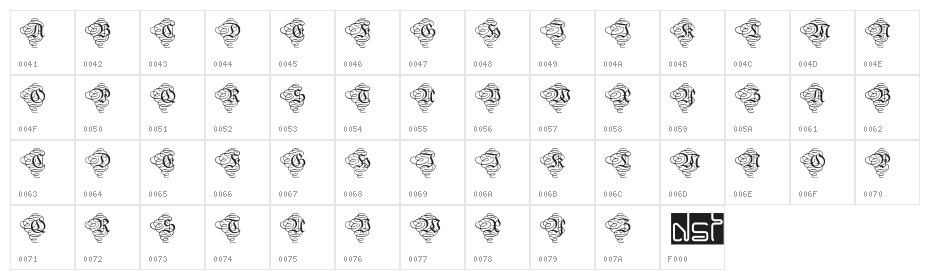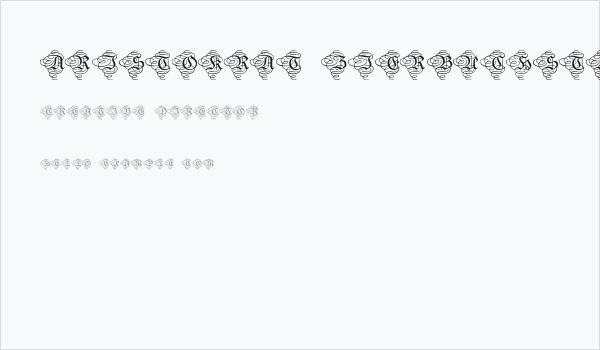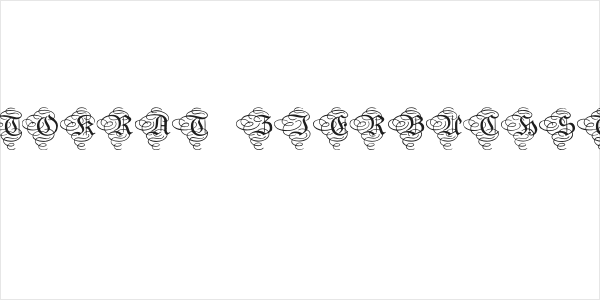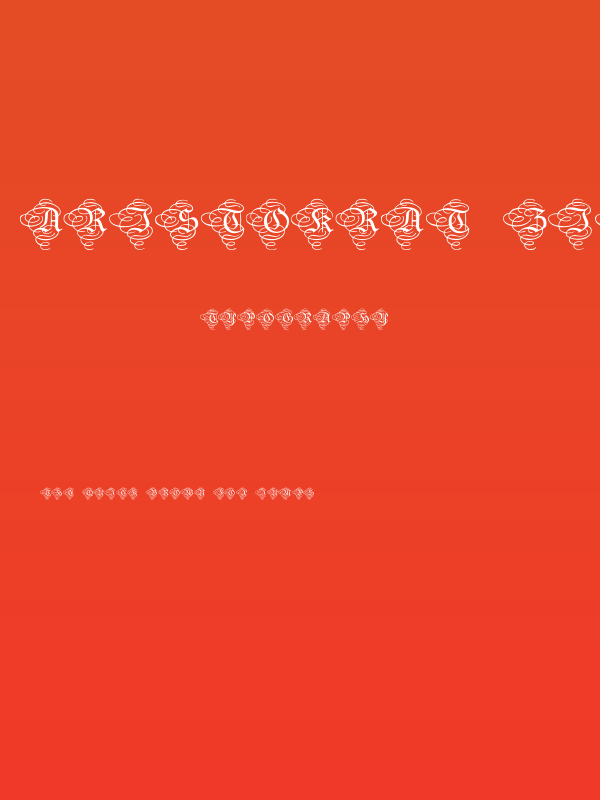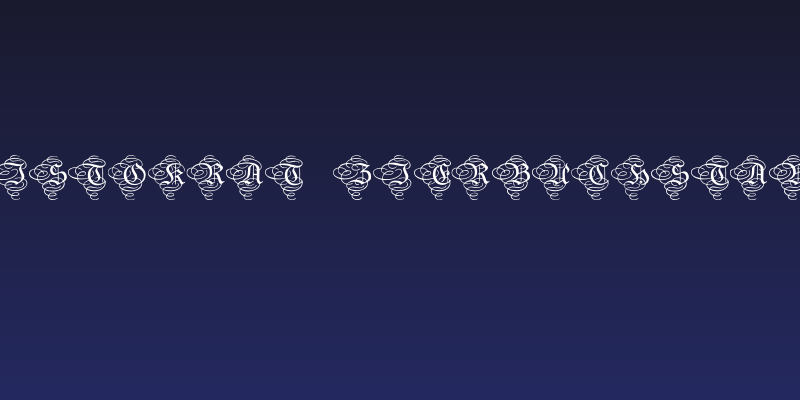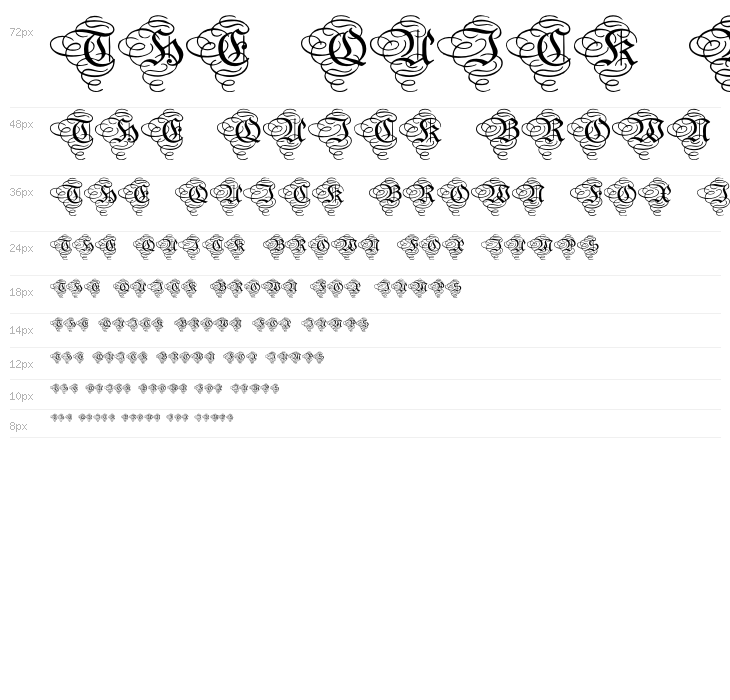
Aristokrat Zierbuchstaben Font
Aristokrat Zierbuchstaben Description
This font is an intricate and highly decorative typeface that features elaborate swirls and flourishes, reminiscent of ornate calligraphy. Each character is enveloped in a complex pattern of loops and curves, creating a sense of elegance and sophistication. The design is consistent across all characters, maintaining a cohesive and harmonious appearance. This font is particularly striking and commands attention, making it ideal for special occasions or projects that require a touch of grandeur and opulence. Its unique style is both artistic and expressive, capturing the essence of classical ornamentation.
| Use Case | Logos, Invitations, Decorative headings |
| Proposed Projects | Ideal for wedding invitations, luxury branding, high-end product packaging, and decorative headings. |